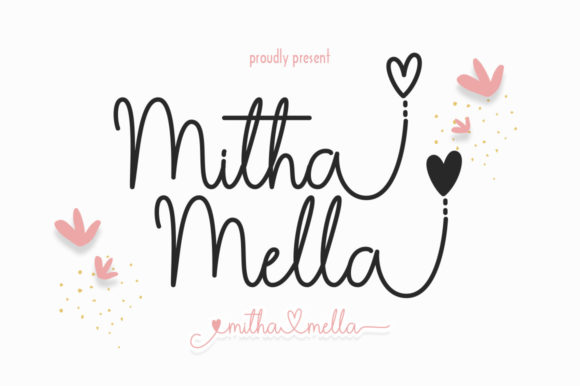
Unveil the Enchanting Mitha Mella: A Delicate Script Font for Tattoo Quotes That Will Captivate Your Soul
In a world where self-expression reigns supreme, your tattoo holds the power to narrate your unique story. Let Mitha Mella, the exquisite script font designed by jauzadesign, be your artistic muse as you immortalize meaningful words on your skin. With its slender strokes and graceful curves, Mitha Mella flawlessly captures the essence of profound emotions, making it the ideal choice for tattoo quotes.
Immerse yourself in the boundless charm of Mitha Mella's delicate structure, perfectly crafted to accentuate the beauty of your chosen words. This font possesses an innate elegance that elevates each letter, transforming them into graceful strokes of artistic brilliance. Whether you seek inspiration, love, or a touch of wanderlust, Mitha Mella becomes your artistic conduit, allowing your tattoo to speak volumes.
Unlock the limitless creative possibilities of Mitha Mella, meticulously designed to bring your tattoo quotes to life. With its extensive character set and PUA encoding, you gain effortless access to a treasure trove of glyphs and ligatures, empowering you to unleash your imagination. Seamlessly integrate Mitha Mella into your design software and witness the transformation as each letter effortlessly flows into the next, creating an intricate tapestry of written art.
Experience the transformative power of Mitha Mella, a font that transcends the ordinary and embraces the extraordinary. Its ethereal beauty is not confined to tattoo quotes alone; let it dance across your wedding invitations, branding projects, and social media posts. Mitha Mella effortlessly adapts to diverse creative endeavors, adding a touch of elegance and sophistication to every project it graces.